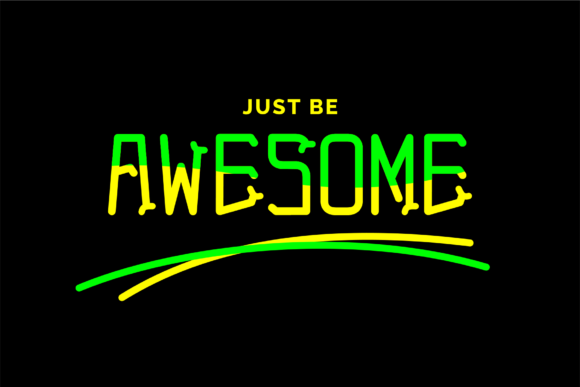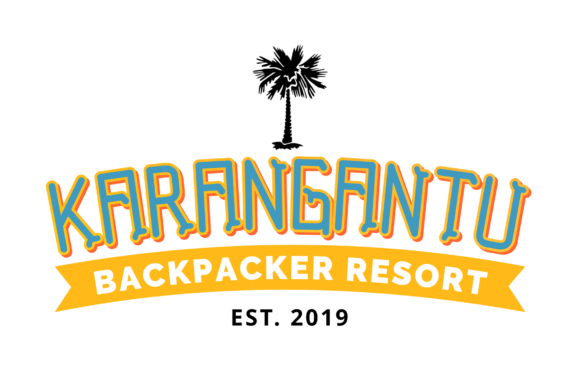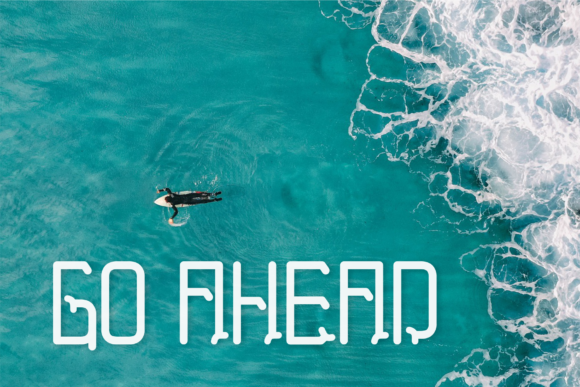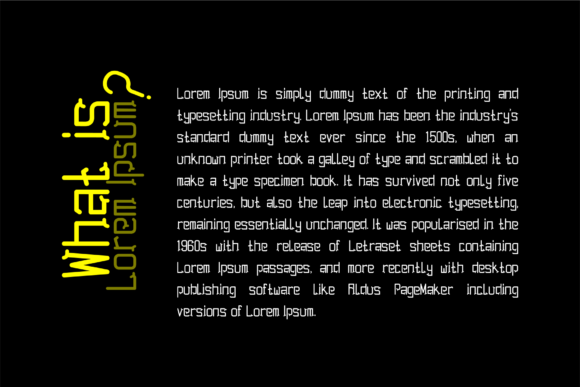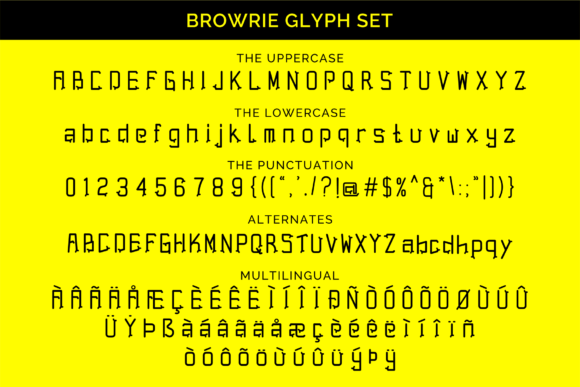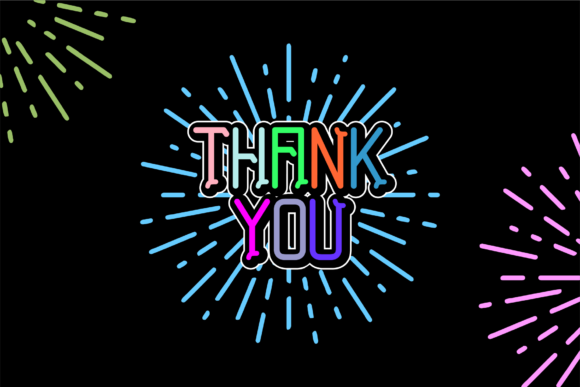
Browrie Font: Unleashing Fun, Quirkiness, and Authenticity in Typography
In the world of typography, fonts play a crucial role in conveying messages, expressing emotions, and creating visual identities. Among the numerous fonts available, Browrie Font stands out for its unique blend of fun, quirkiness, and authenticity. This playfully conceptual display typeface font is designed to make a statement, and its versatility ensures it will look truly outstanding in a wide range of contexts.
The Essence of Browrie Font
Browrie Font embodies the spirit of playfulness and creativity, making it an ideal choice for designers and crafters looking to add a touch of whimsy to their projects. Its quirky and authentic design ensures that it can be used in various applications, from branding and advertising to packaging and digital media.
Key Features of Browrie Font
- Unique and Playful Design: Browrie Font boasts a distinctive and playful design that sets it apart from other fonts. Its irregular shapes and lines create a sense of movement and energy, making it perfect for attention-grabbing headlines and titles.
- Versatility: This font is incredibly versatile and can be used in a wide range of contexts, including digital media, print materials, and even merchandise.
- Authenticity: Browrie Font’s authentic design ensures that it resonates with audiences and creates a lasting impression.
Applications of Browrie Font
Browrie Font’s versatility makes it suitable for various applications, including:
- Branding and Identity: Use Browrie Font to create unique and memorable brand identities that stand out from the crowd.
- Advertising and Marketing: This font is perfect for attention-grabbing headlines and titles that require a playful and quirky touch.
- Packaging and Labeling: Add a touch of whimsy to your packaging and labeling with Browrie Font, making your products more appealing to customers.
- Digital Media: Use Browrie Font in digital media, such as social media graphics, blog posts, and website headers, to create engaging and shareable content.
Tips for Using Browrie Font
- Use it as a Display Font: Browrie Font is designed to be used as a display font, so use it to create attention-grabbing headlines and titles.
- Experiment with Colors and Textures: Don’t be afraid to experiment with different colors and textures to add depth and visual interest to your designs.
- Pair it with Other Fonts: Combine Browrie Font with other fonts to create visually appealing and harmonious typography.
Browrie Font is a unique and playful display typeface font that embodies fun, quirkiness, and authenticity. Its versatility and distinctive design make it an ideal choice for designers and crafters looking to add a touch of whimsy to their projects. With its wide range of applications and tips for use, Browrie Font is sure to become a go-to font for creatives looking to make a statement.